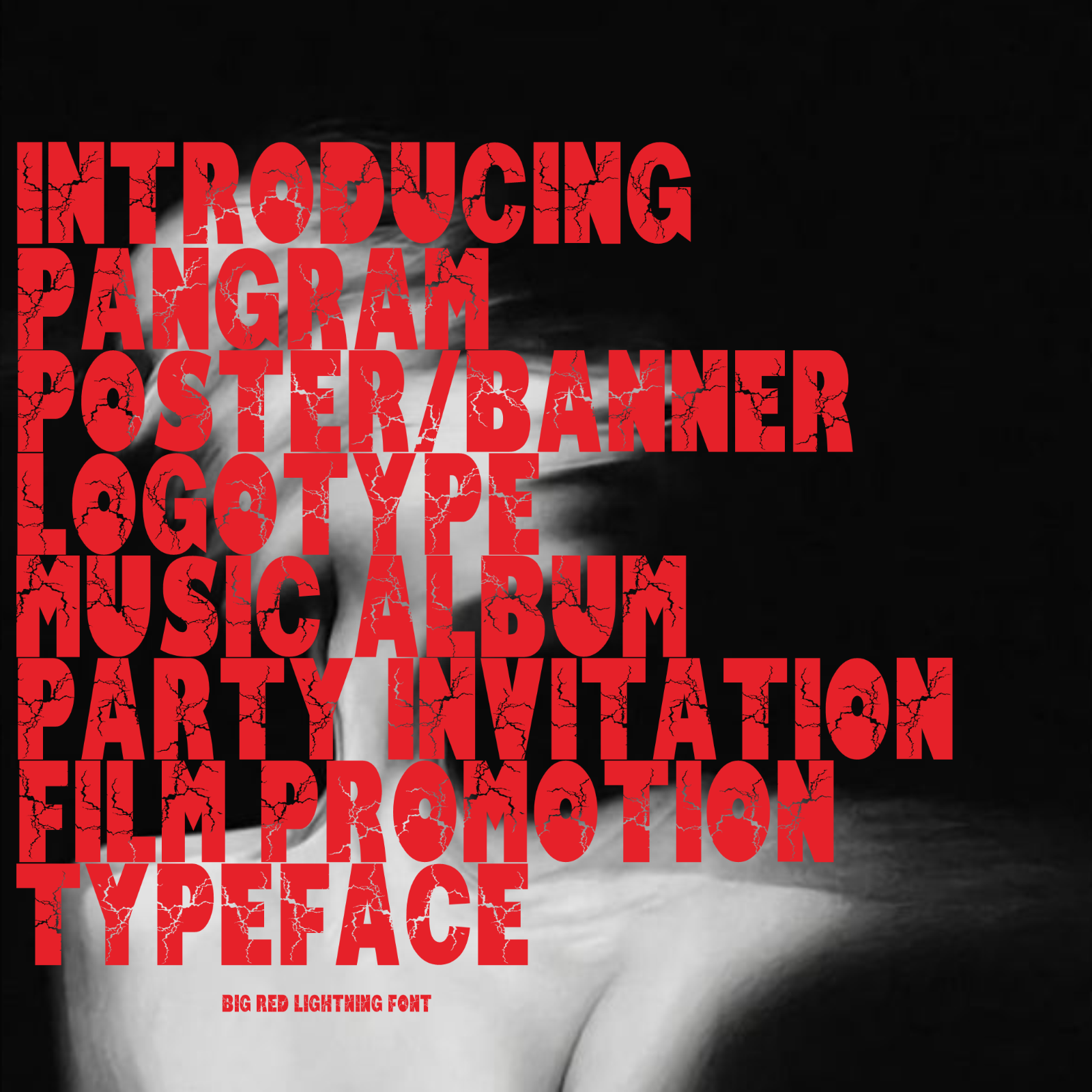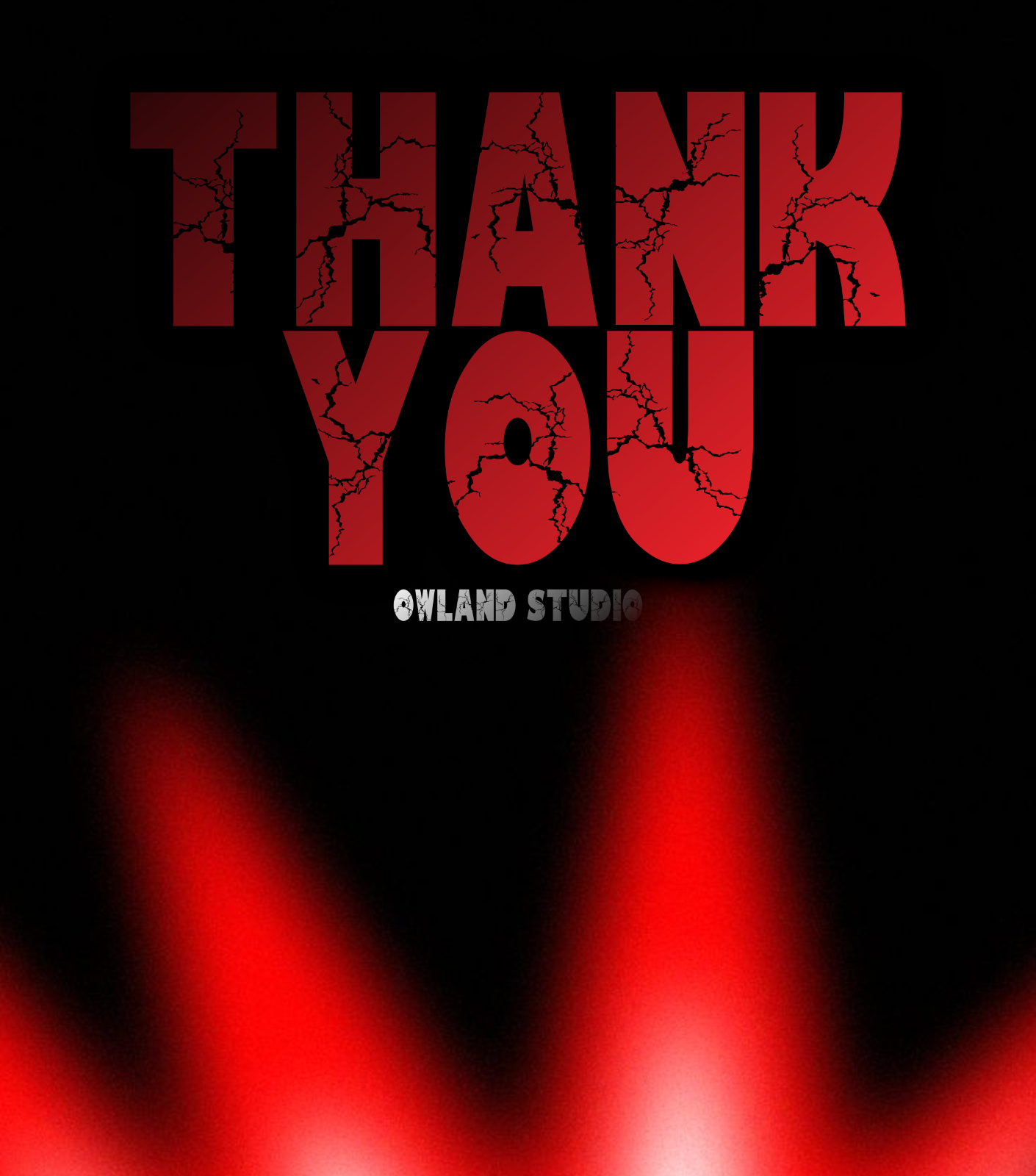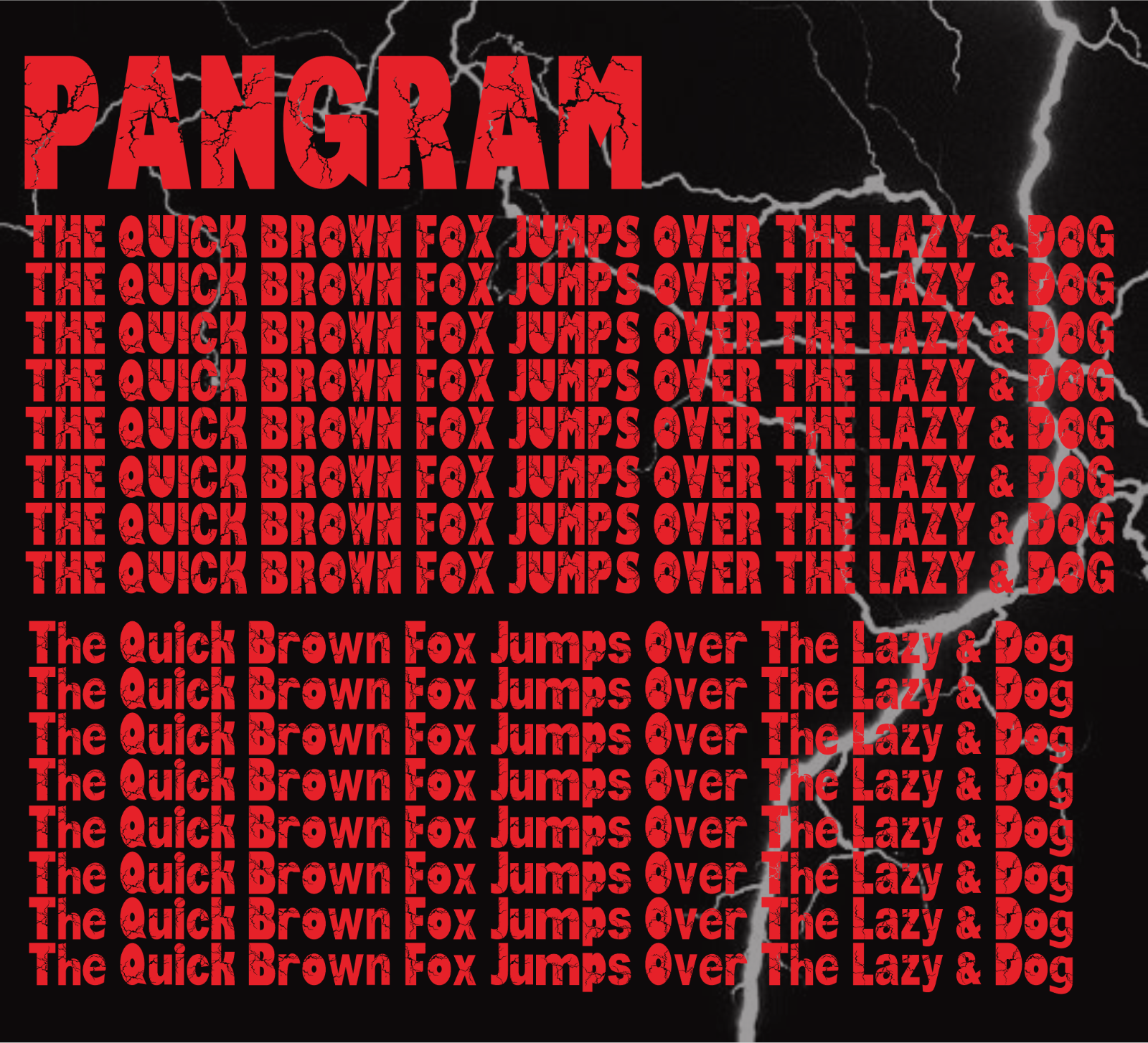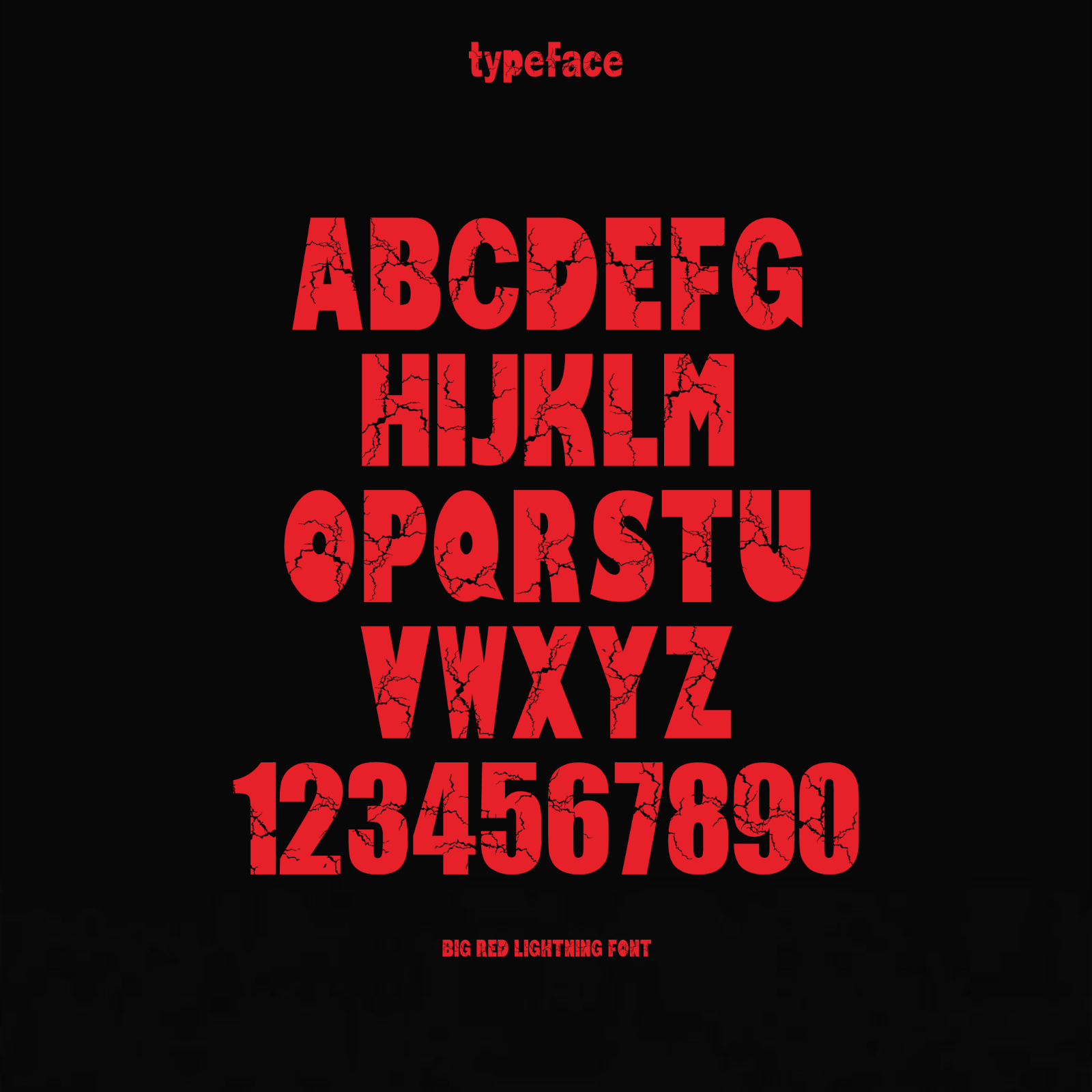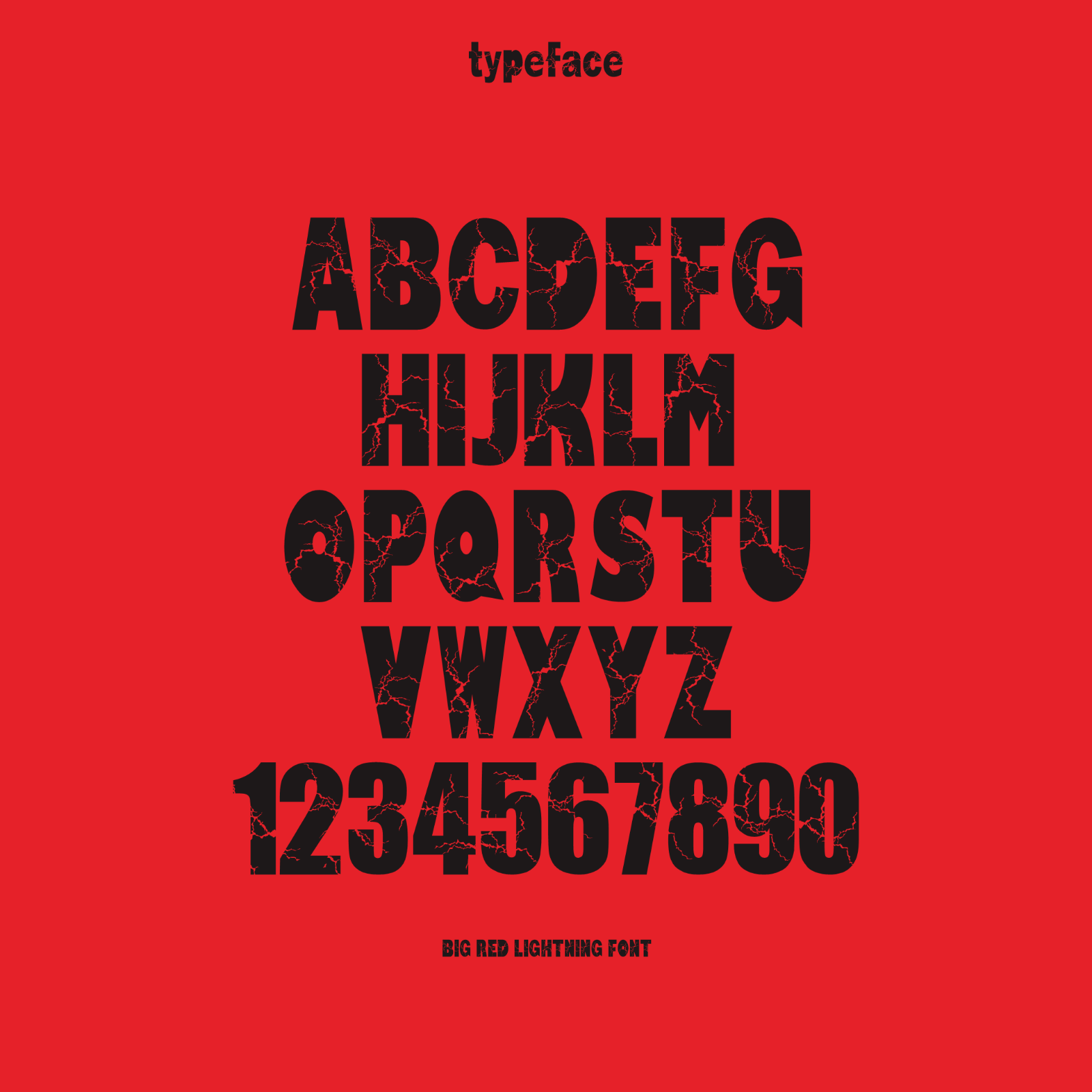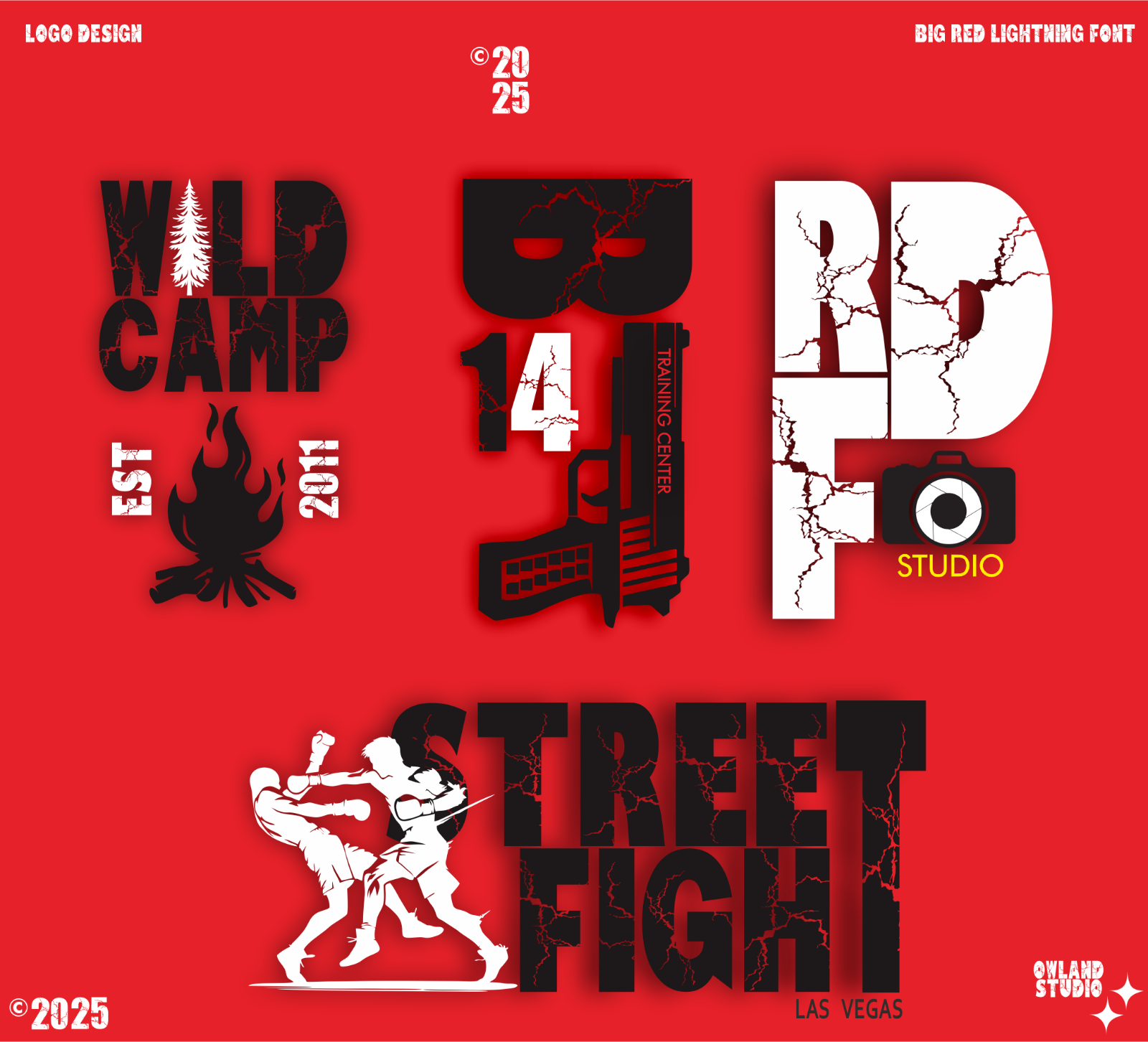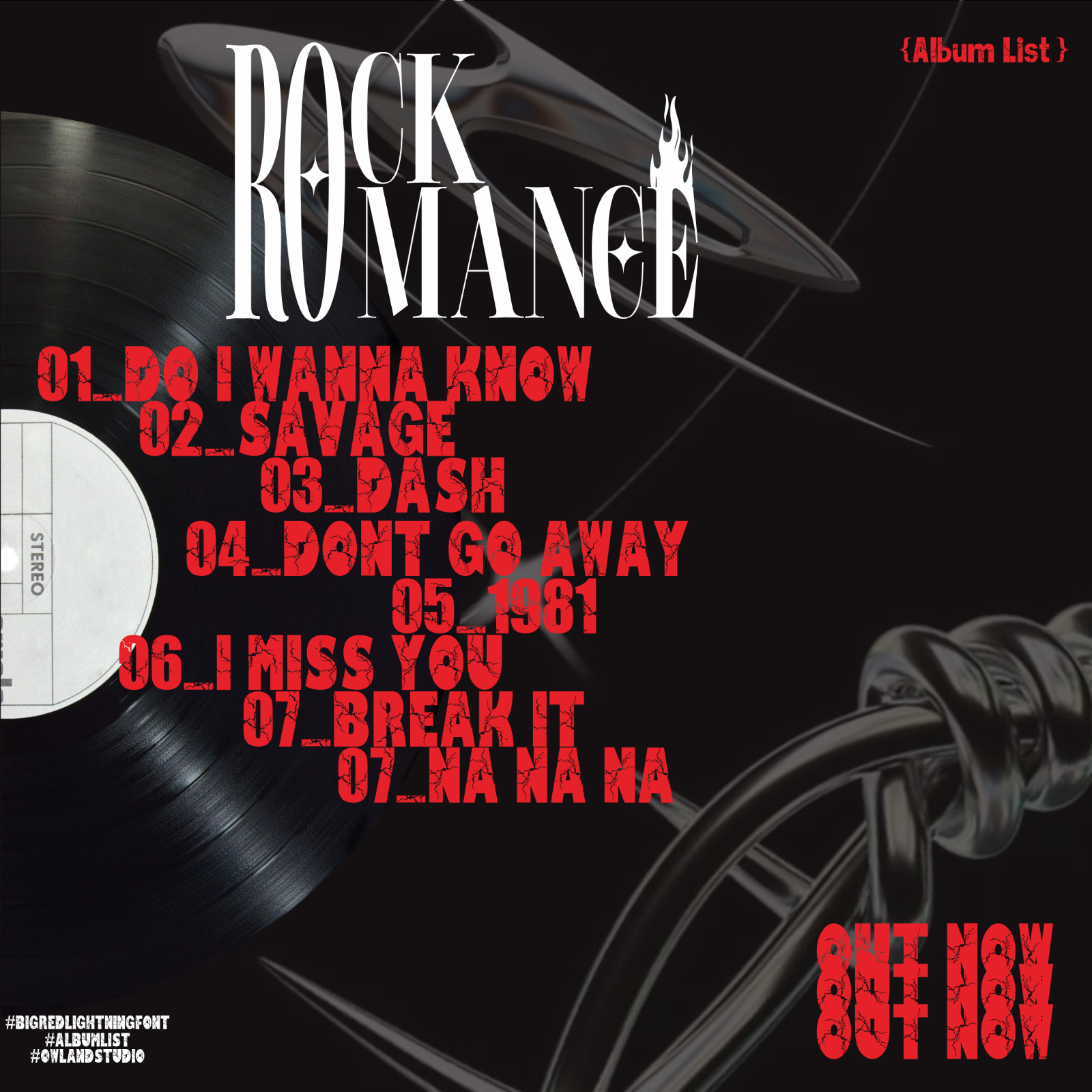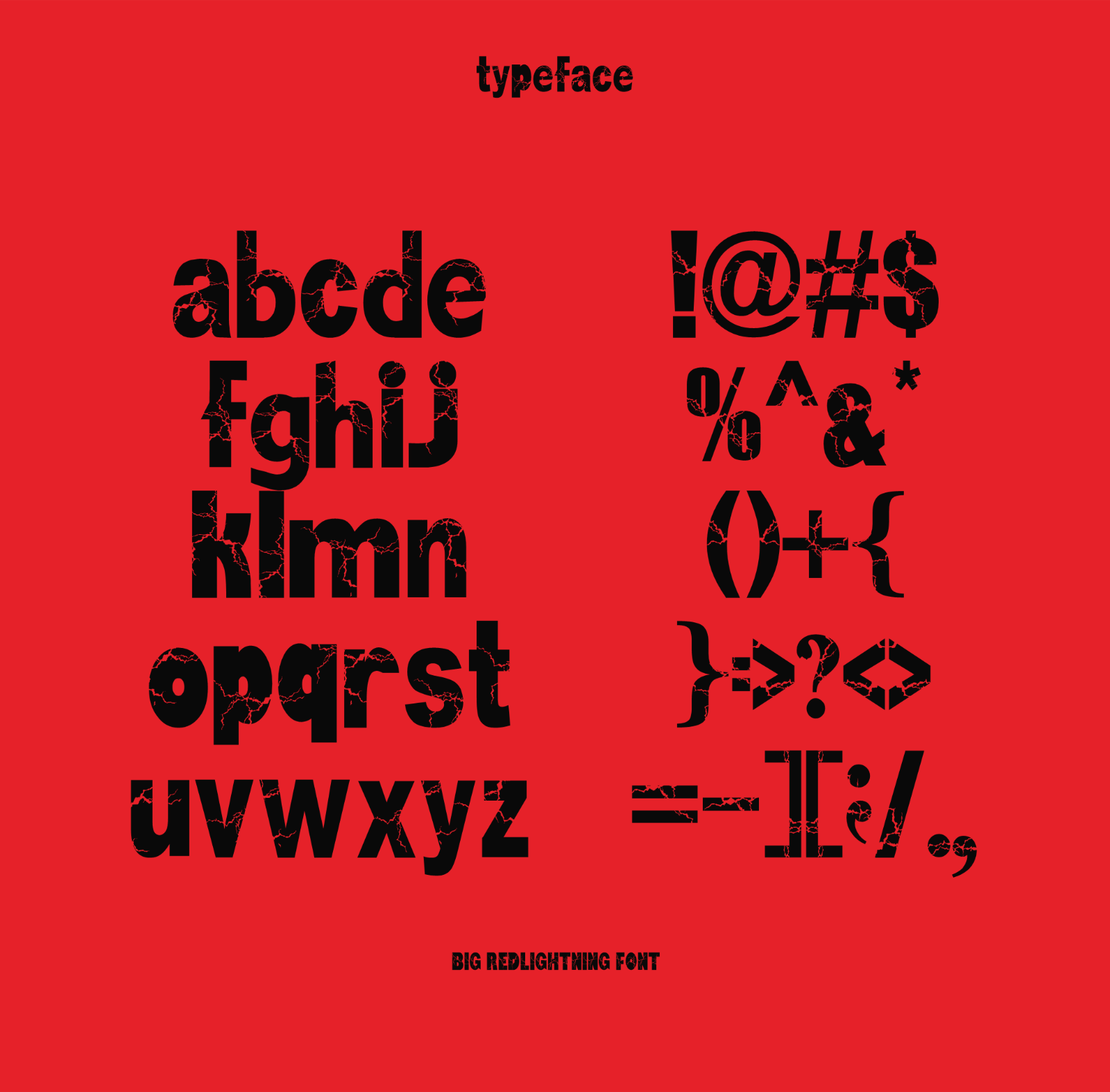
MarketplaceFontsBIG RED LIGHTNING - DESTROY, ERODED, & HOROR FONT
Big Red Lightning is a display font inspired by the visual idea of lightning strikes, which is reflected in the font design that conveys a rough, tough, fierce, hard, cruel, and dangerous appear ance of this typeface.
The genre of this font is very destructive, eroded, and horror-themed. This font is ideal for creating logos, posters, album lists , ghost party invitations, and much more to strongly capture attention with these design elements.